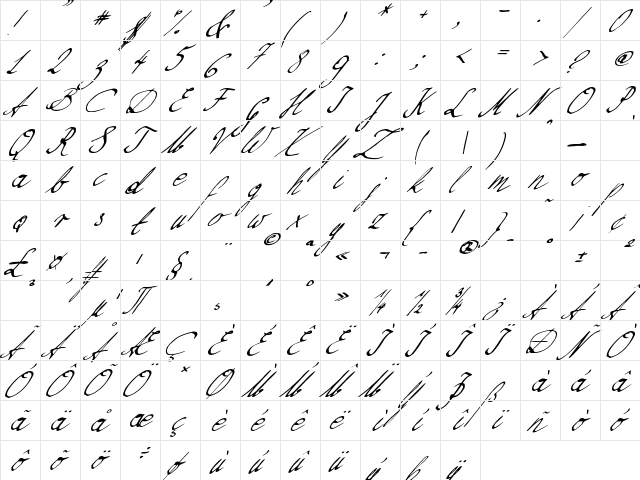
Nillie's Love Letters Regular
| Designer | Aga Silva |
Design Context for Nillie's Love Letters Typeface
Nillie's Love Letters is a composed and adaptable typeface that performs quietly and consistently across a wide range of design contexts.